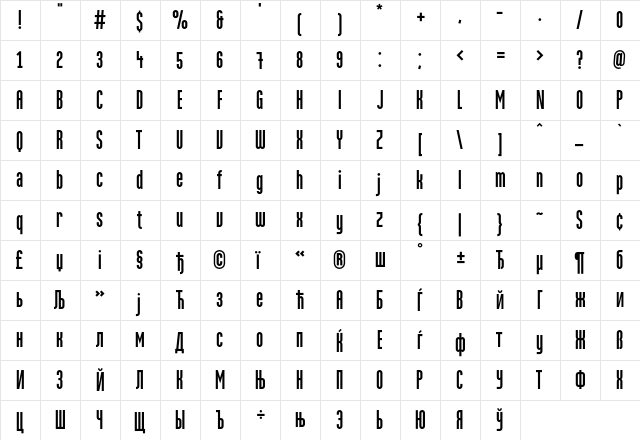
MartenCyr Grotesque
| Style | Grotesque |
Design Context for MartenCyr Typeface
MartenCyr offers clean, dependable letterforms without strong stylistic allegiance, making it a practical choice for designers who need flexibility.